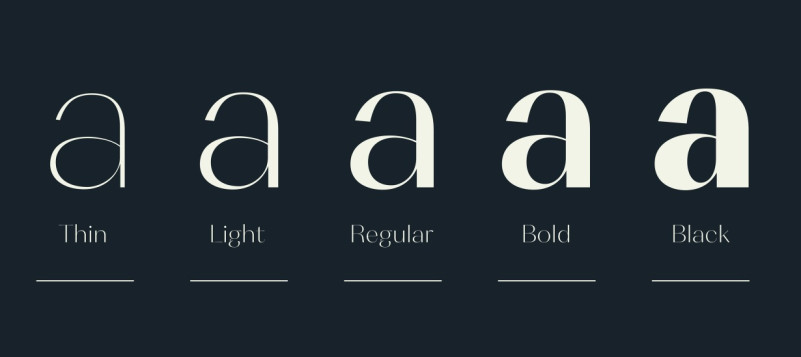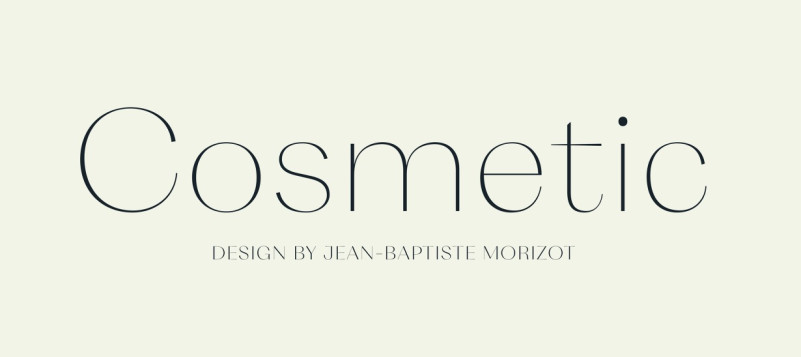
Cosmetic Font Family
Cosmetic Sans Serif Font is an elegant, classical-inspired sans serif font family. As its name implies, it has been developed for exquisite applications, like the corporate identity of fashion or beauty product firms, or for cosmetic product packaging design. For centuries, the fashion world has looked to France for inspiration. Cosmetic does not disappoint; it is a ‘French’ typeface, designed by Jean-Baptiste Morizot. Aside from its general elegance, the most gallic part of Cosmetic is its lowercase ‘g’, whose form calls back to some early 19th century Didot typefaces. Each font includes a more standard-looking ‘g’ as a stylistic alternate, as well as a narrower ‘f’ that may be automatically substituted into the text via a Contextual Alternates OpenType feature, to help it avoid colliding with certain letters that might follow it. Cosmetic’s letterforms appear slightly extended when compared with many other typefaces.